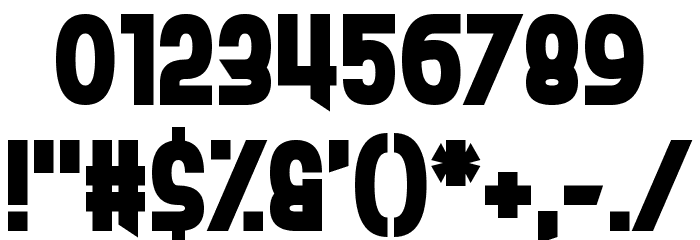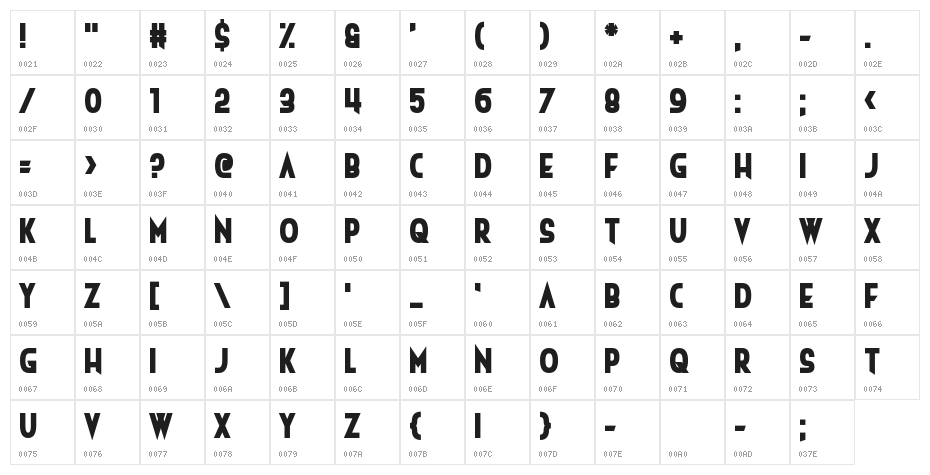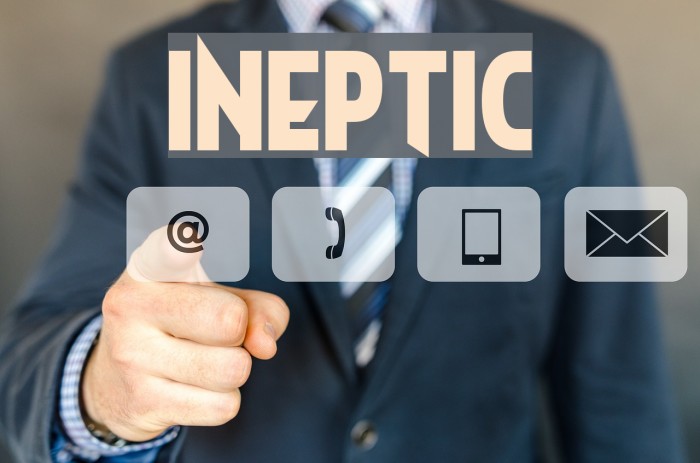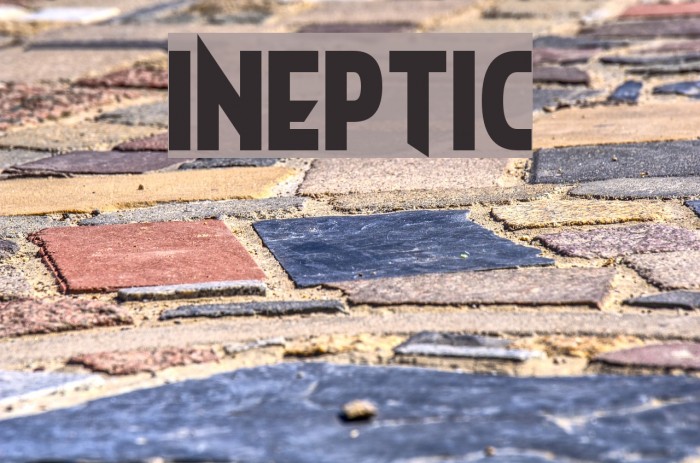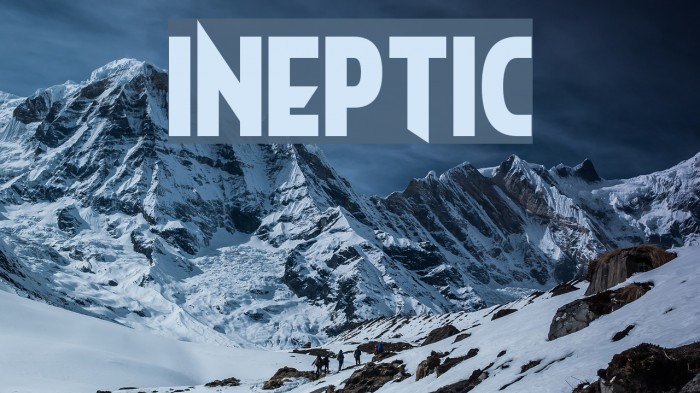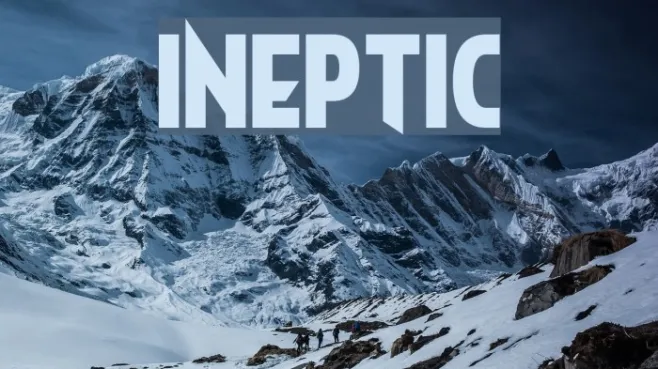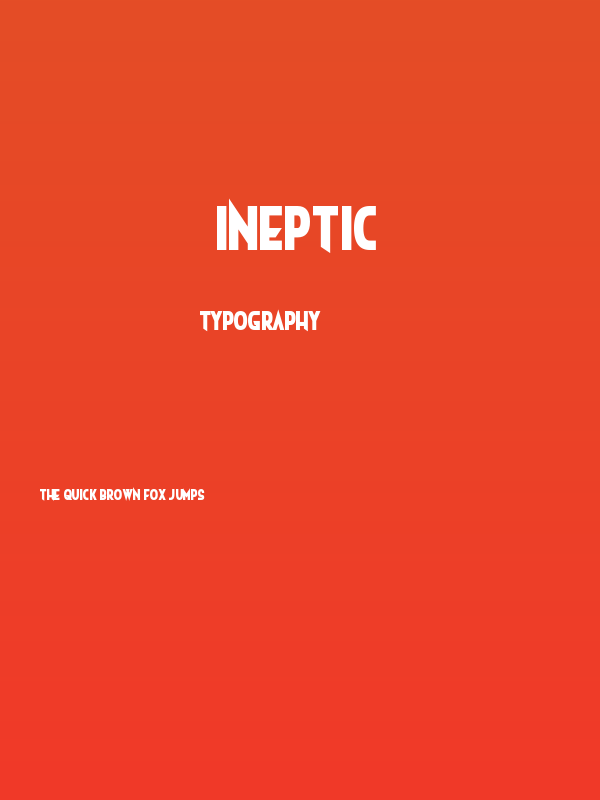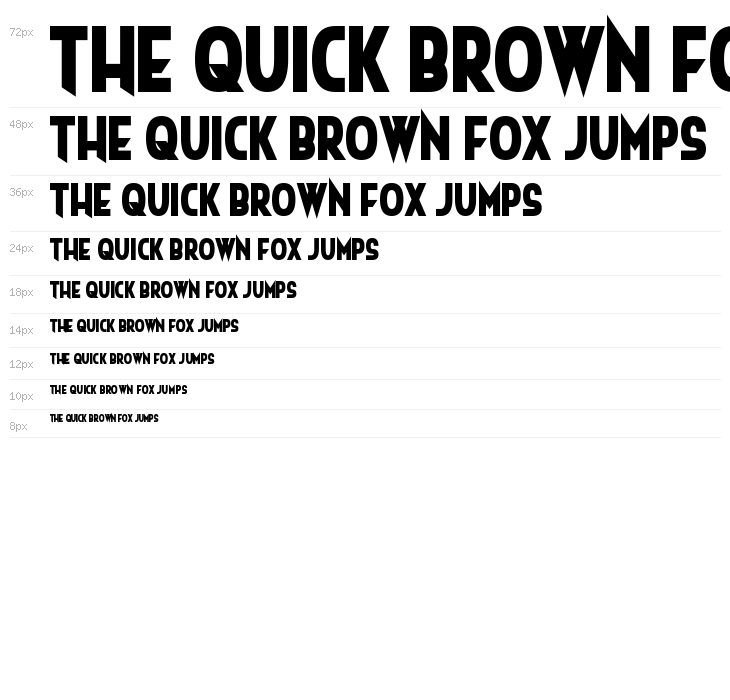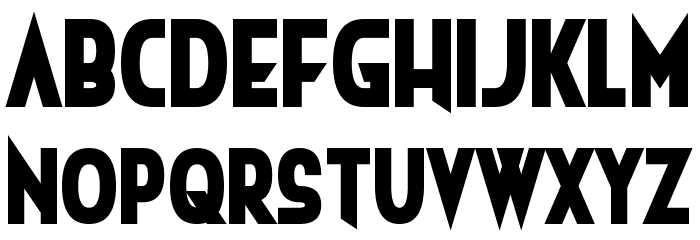
Ineptic Font
Ineptic Description
This font exhibits a bold and impactful design, characterized by its strong geometric shapes and sharp angles. The uppercase letters are particularly striking, with a consistent thickness that conveys a sense of stability and confidence. The numerals and special characters maintain this robust style, ensuring uniformity across all glyphs. The font's design is modern and assertive, making it ideal for attention-grabbing headlines and branding materials. Its bold presence is balanced by clean lines and a straightforward structure, allowing for clear readability despite its dramatic appearance.
| Proposed Projects | Ideal for branding, advertising, posters, and headlines where a strong visual impact is desired. |